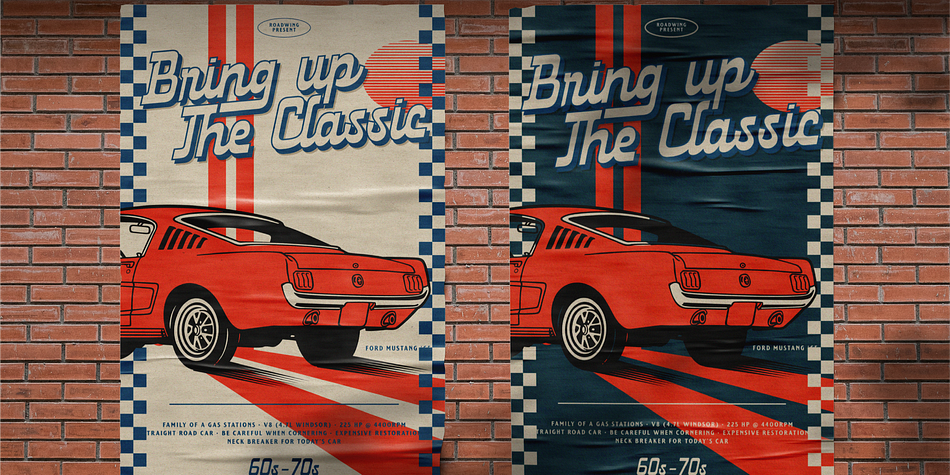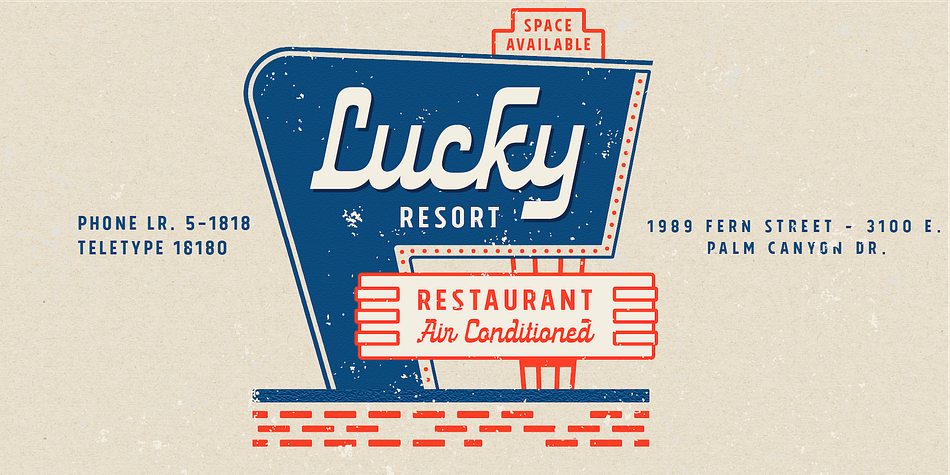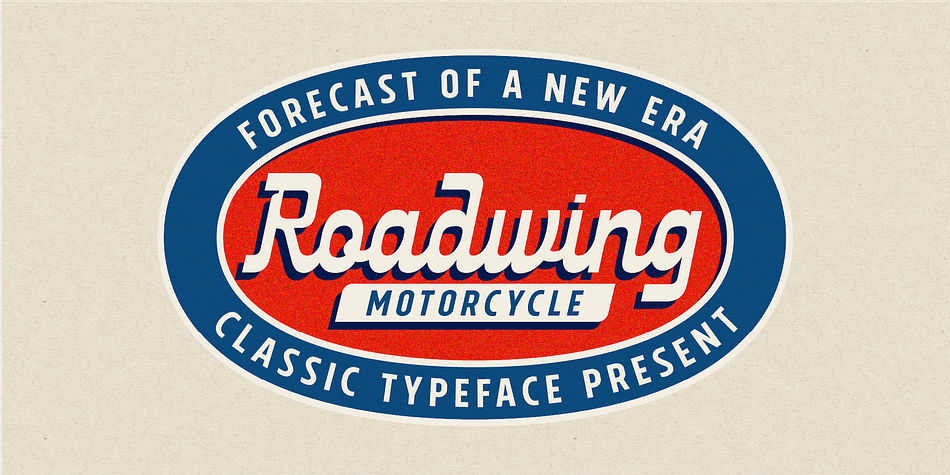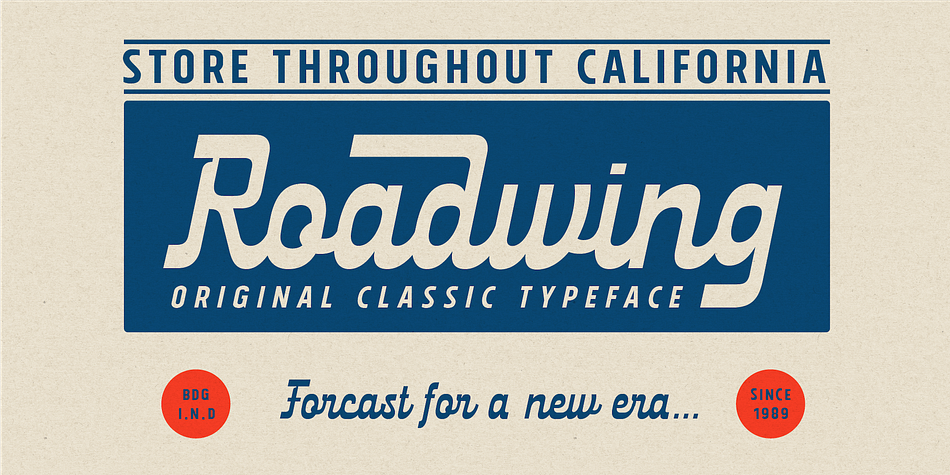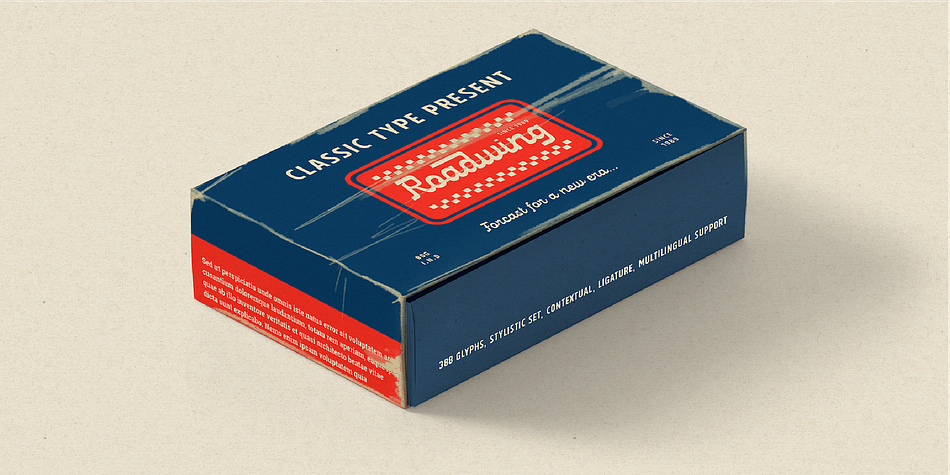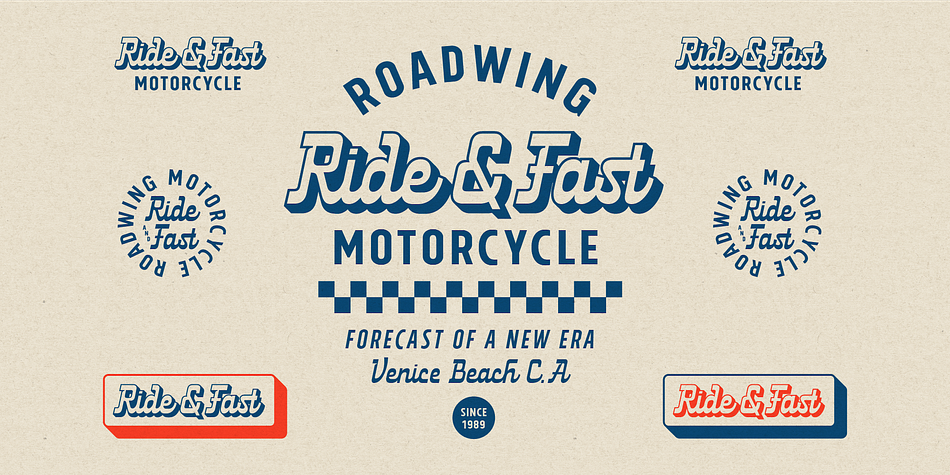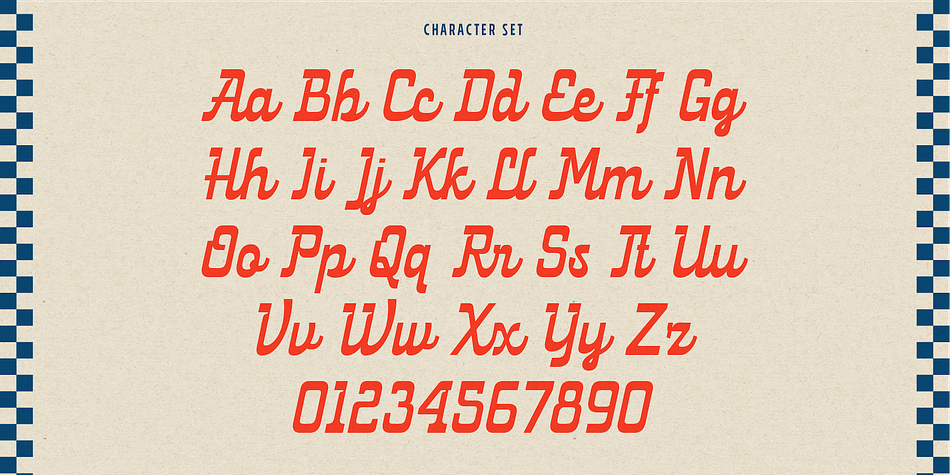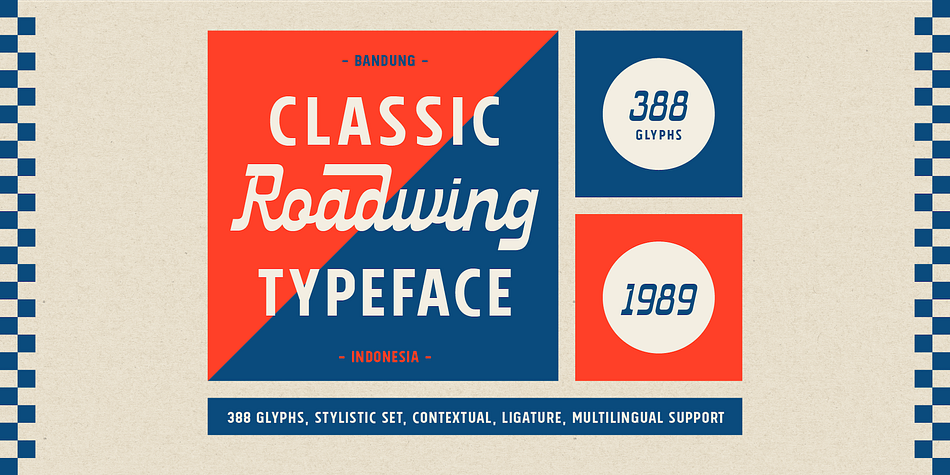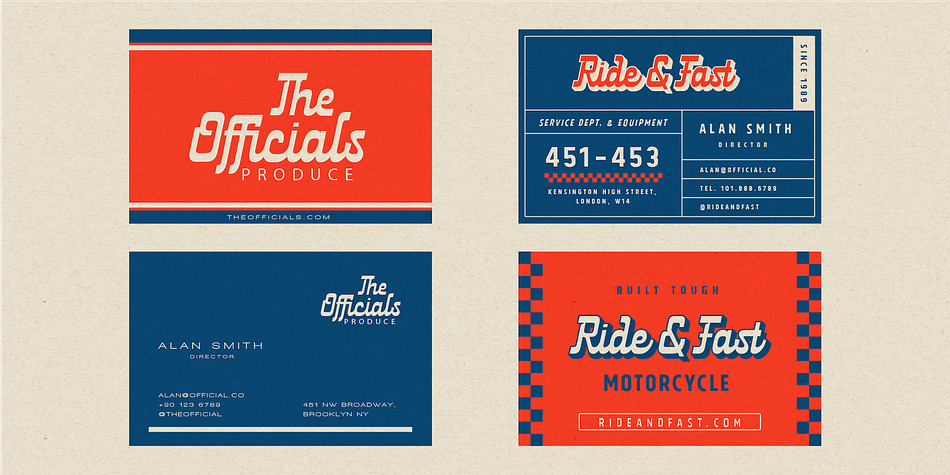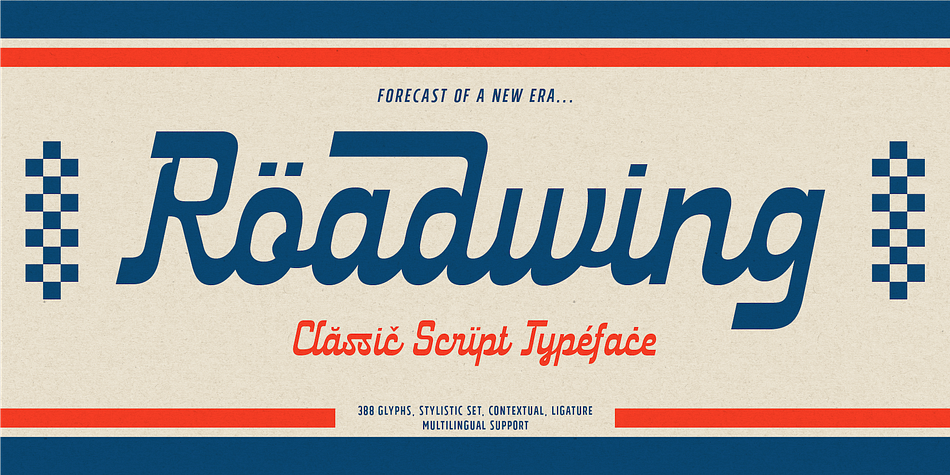
Roadwing
Designed by Renov Olivian, Roadwing is a script font family published by AF Studio.
Introducing Roadwing, a font that echoes the spirit of bygone eras with its retro and classic script style. Designed to evoke nostalgia and capture the essence of vintage automotive culture, this font is perfect for projects related to classic retro cars, motorcycles, boats, and vintage billboards.
The Roadwing font boasts a timeless elegance, reminiscent of the golden age of automobiles. Its flowing script exudes sophistication and charm, while its retro aesthetic adds a touch of nostalgia to any design.
Featuring contextual alternates, stylistic alternates, and ligatures, Roadwing offers versatility and customization options for your creative endeavors. Whether you’re designing a logo, signage, or promotional material, this font provides the flexibility to tailor your typography to suit your unique vision.
With its distinctive character and attention to detail, Roadwing brings a sense of authenticity and heritage to your projects, inviting viewers to take a journey back in time to the heyday of classic automobiles and vintage aesthetics.